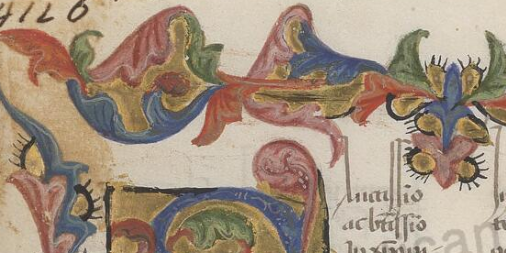
Now that most of us have almost given up writing by hand, one's admiration grows for those who can recognize from the faults the handwriting of people long dead. It is one of the scholarship's more recherché specialities.
From the clever people at Autografi dei Letterati Italiani we discover that several jottings in a Vatican Library copy of Cicero, Vat.lat.3246, were put there by one Antonio Beccadelli (1394-1471), a humanist poet and diplomat. Beccadelli, nicknamed Il Panormita, had an income as a courtier that allowed him to acquire his own library.
The codex is one of six put online this week in the first working week of the library's digitizations for 2019.
From the clever people at Autografi dei Letterati Italiani we discover that several jottings in a Vatican Library copy of Cicero, Vat.lat.3246, were put there by one Antonio Beccadelli (1394-1471), a humanist poet and diplomat. Beccadelli, nicknamed Il Panormita, had an income as a courtier that allowed him to acquire his own library.
The codex is one of six put online this week in the first working week of the library's digitizations for 2019.
- Ross.259, a de luxe manuscript from Paris of Augustine of Hippo's letters. Beautiful filigree work by Jacquet Maci in the illumination (see Mirabile):
- Vat.lat.2476, Gentilis de Fulgineo on Avicenna's medical writings, 15th century
- Vat.lat.3246 (Upgraded to HQ), ninth-century copy in a Caroline hand (thanks @gundormr for correcting this) of Cicero's Tusculan Disputations, formerly owned by Antonius Beccadellus (1394-1471), and Fulvio Orsini (1529-1600), according to Mirabile. In binding paper with some Beneventan writing.
I don’t think https://t.co/nvxFdwgGFC.3246 is in a Beneventan hand. The text is a nice Caroline, there seems to be just a Beneventan binding fragment (see the edges of the guard leaves, front and back)
— AaronM (@gundormr) January 13, 2019 - Vat.lat.4116 (Upgraded to HQ), a 15th century manuscript of Defensorium ecclesiasticae potestatis by Adam de Eston (1330-1397) (thanks Mirabile) with these amazing border designs:
- Vat.lat.4354, a compilation of Franciscan Order resources from about 1430, see Mirabile
- Vat.lat.4517, with an anonymous Latin grammar from fol 22, incipit Coelum et terra sunt plena (listing by G. L. Bursill-Hall)